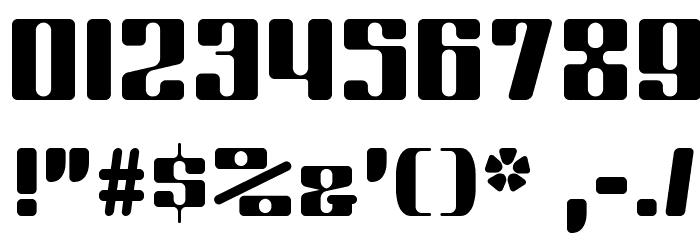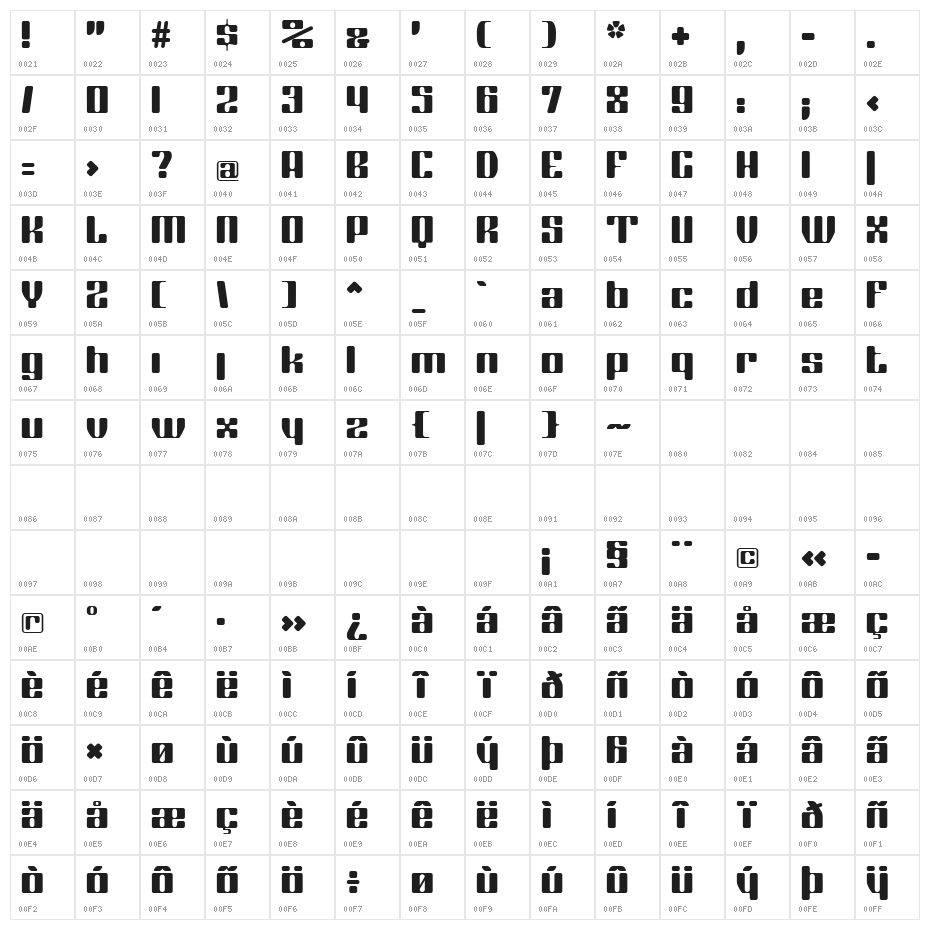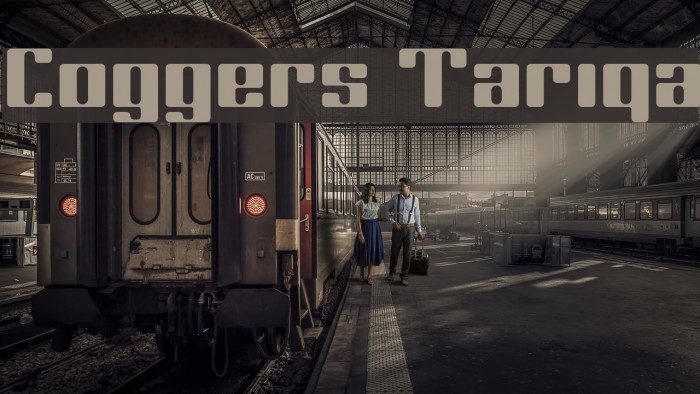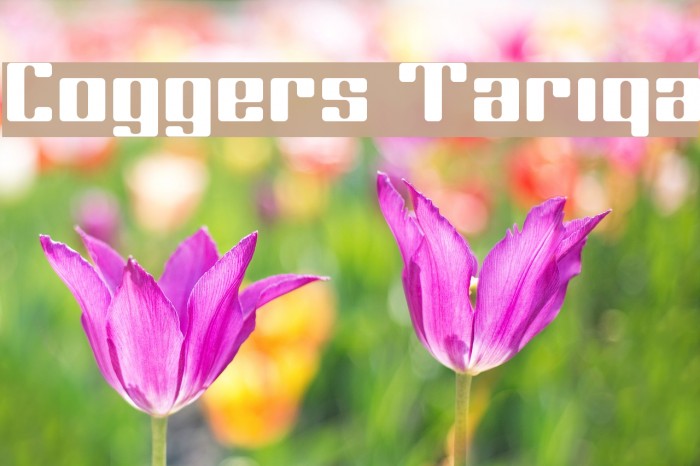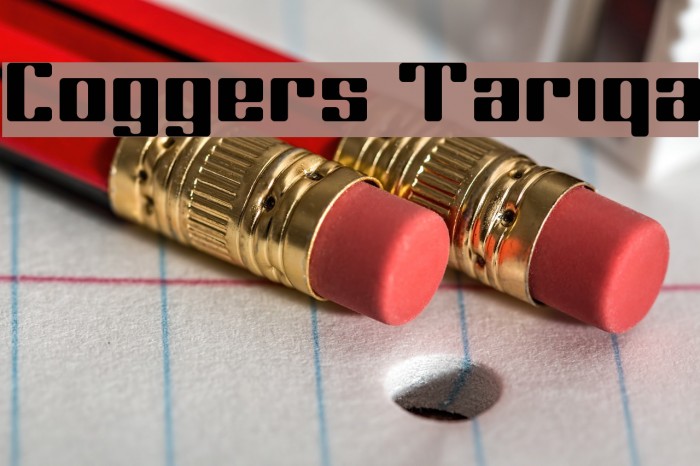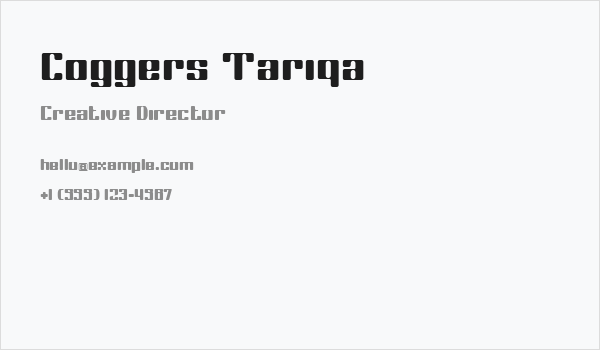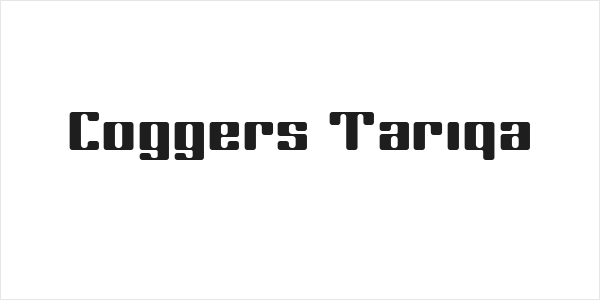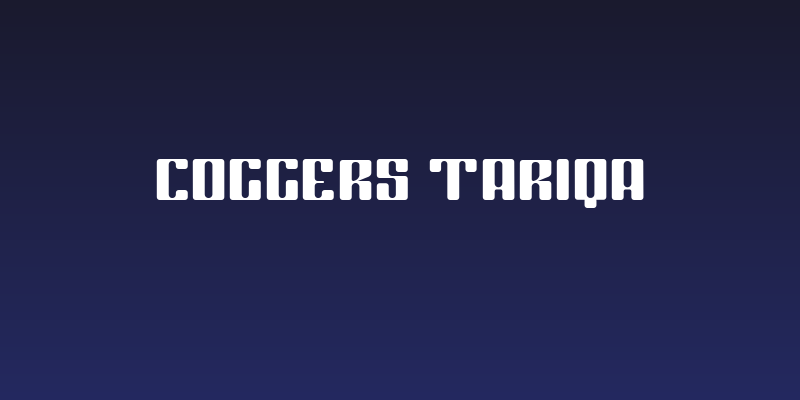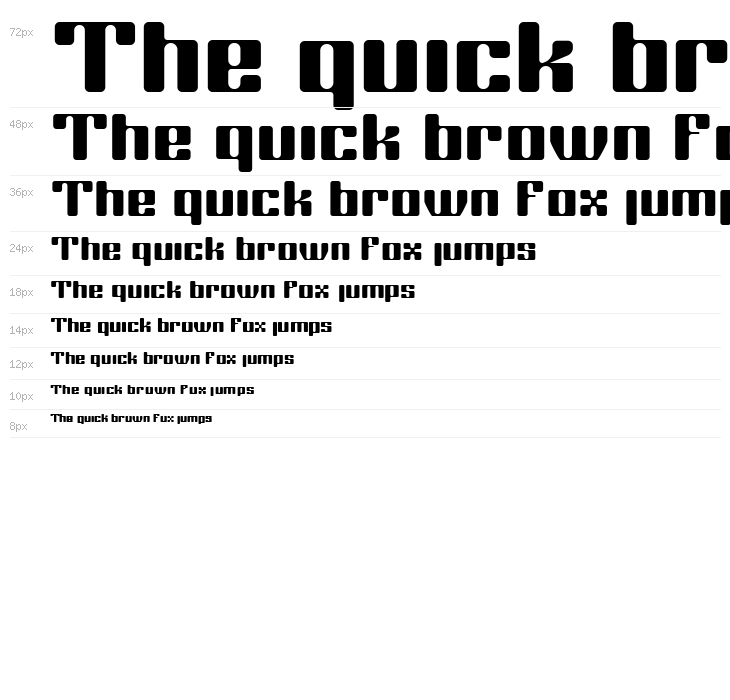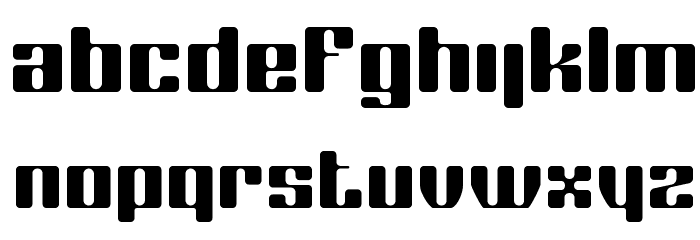
This font features a bold and robust design with a modern, geometric aesthetic. The characters are constructed with thick, even strokes and rounded edges, giving them a strong, impactful presence. The uppercase and lowercase letters maintain a consistent width, contributing to a uniform appearance. The numerals and special characters share the same boldness, ensuring a cohesive look across all text elements. The font's design is both contemporary and versatile, making it suitable for a variety of creative applications.
| Proposed Projects | Ideal for branding, posters, headlines, and any project requiring a strong visual impact. |